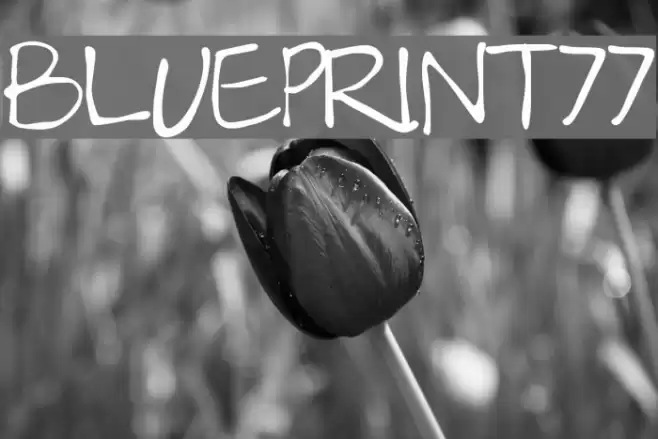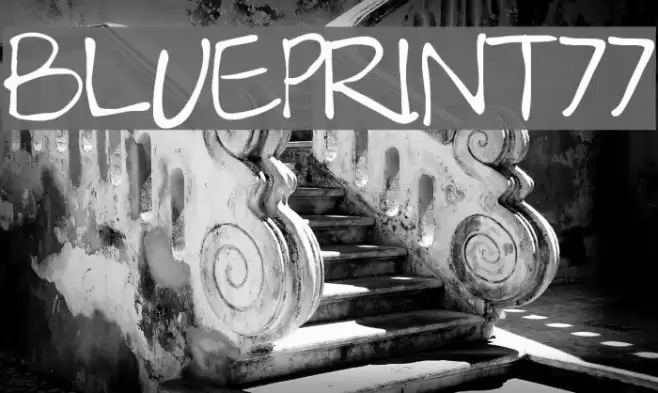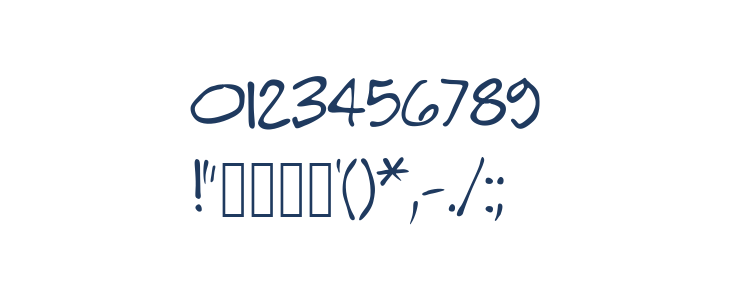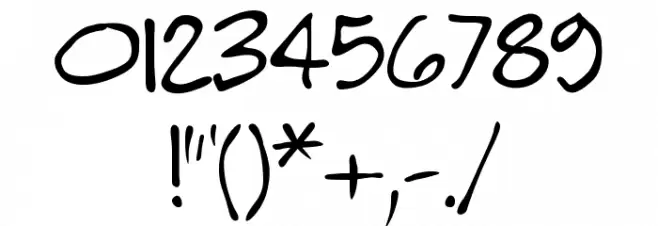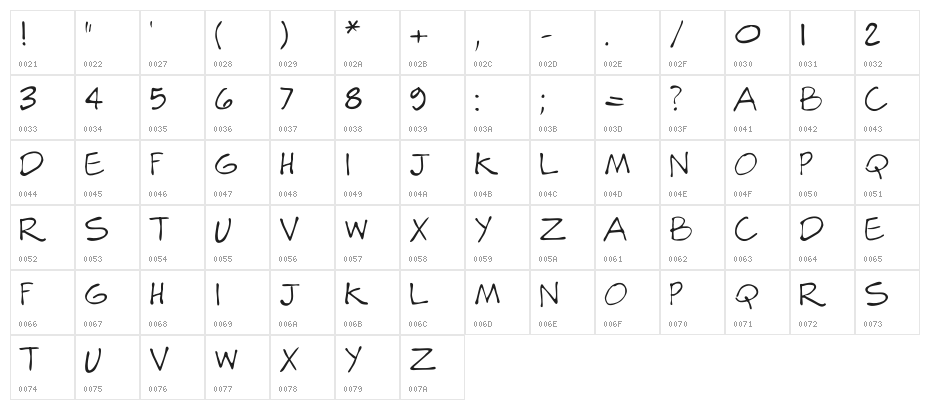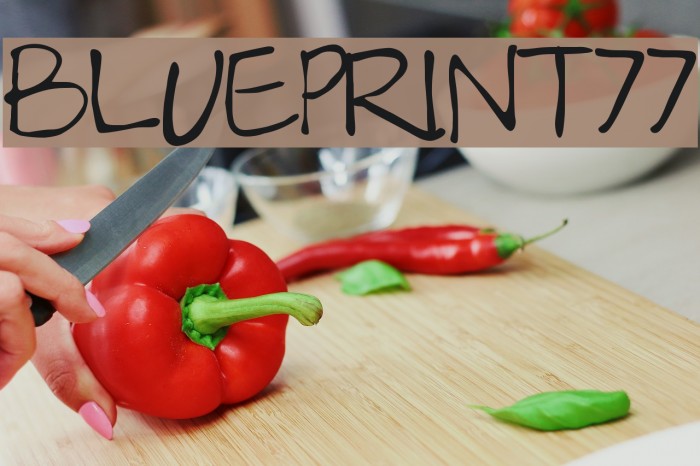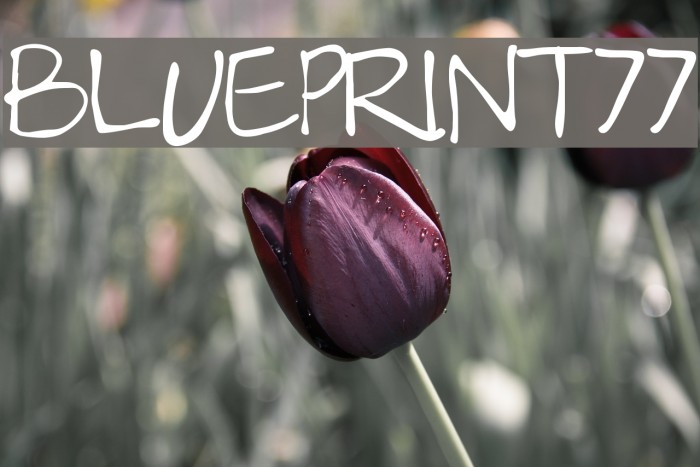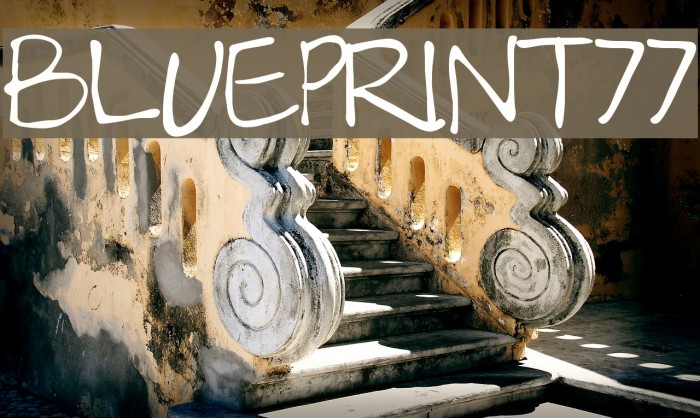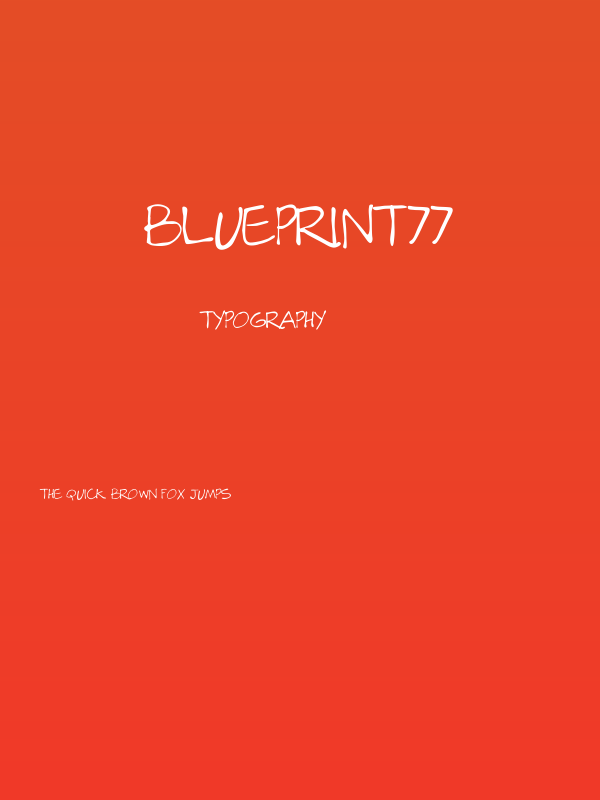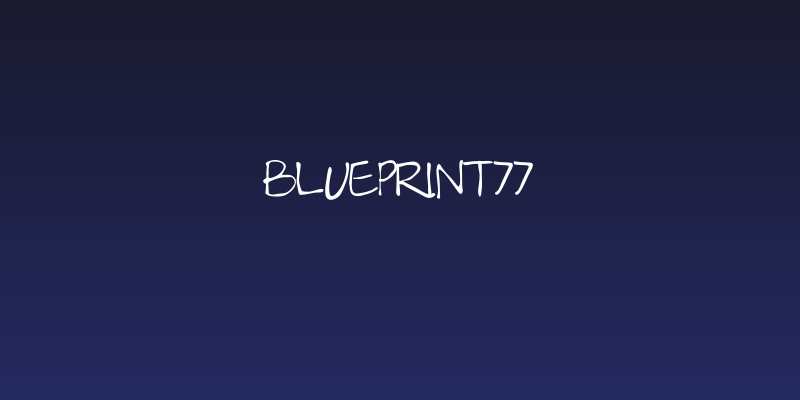
Blueprint77 Font
Blueprint77 Description
This font features a casual, handwritten style that exudes a sense of informality and approachability. The characters are slightly slanted, giving them a dynamic and lively appearance. Each letter is crafted with a consistent stroke width, maintaining a uniform look across the alphabet. The uppercase and lowercase letters are well-proportioned, with a playful yet readable design. The numbers and special characters follow the same aesthetic, ensuring a cohesive look throughout. This font is ideal for projects that require a personal touch, such as invitations, greeting cards, or informal branding.
A casual, handwritten font with a lively and approachable style from Uncategorized fonts.
- Overall Style: Casual